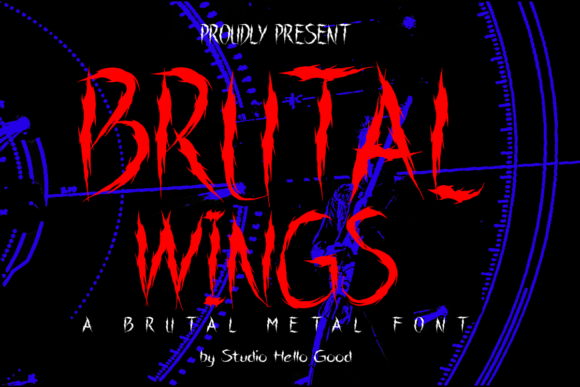
Unleash the Fury: Introducing Brutal Wings Font
I’ll never forget the design project that led me to discover Brutal Wings Font. I was working on a branding campaign for a death metal band, and I was struggling to find a font that captured the essence of their aggressive sound. The client wanted something that would make their fans’ heads bang, but I was stuck in a creative rut. That’s when I stumbled upon Brutal Wings Font, a font forged in the fiery depths of the death metal underworld.
The Birth of Brutal Wings Font
Inspired by the relentless intensity and savage energy of death metal, Brutal Wings Font is a testament to brutality in its purest form. This font is not for the faint of heart; it’s a bold statement piece that screams chaos and rebellion. With its jagged edges and unyielding force, Brutal Wings Font embodies the unbridled energy of the genre.
• ✨ Unapologetically bold and attention-grabbing
• 💥 Perfect for creating striking headlines and titles
• 🎸 Supports OpenType features, glyphs, and stylistic alternates
• 🤔 May not be suitable for body text or lengthy paragraphs
• ⚠️ Limited to uppercase letters and select punctuation
According to the font’s creator, Brutal Wings Font was inspired by the raw energy and aggression of death metal music. The designer, a self-proclaimed metalhead, sought to capture the essence of the genre in a font that would make fans’ heads bang. The result is a font that’s unapologetically bold and unyielding – just like the music that inspired it.
Q: What type of projects is Brutal Wings Font best suited for?
A: Brutal Wings Font is perfect for creating striking headlines, titles, and posters for metal music bands, horror-themed projects, and dark fantasy illustrations.